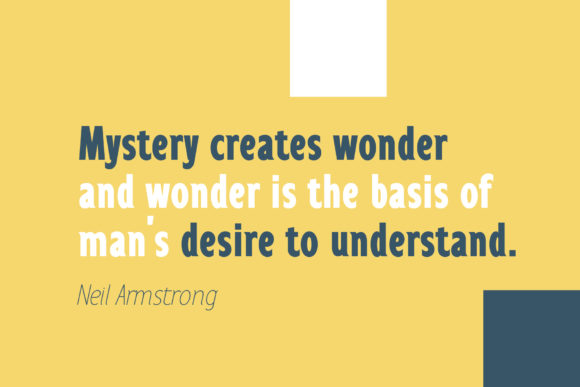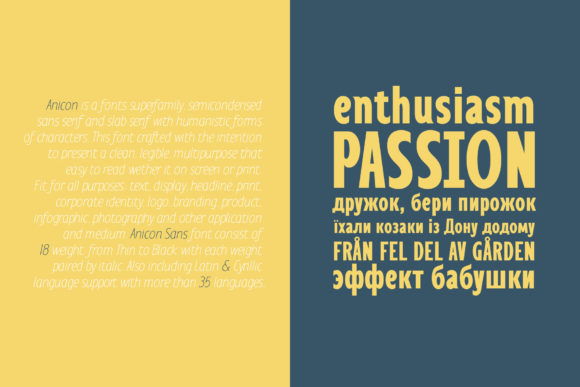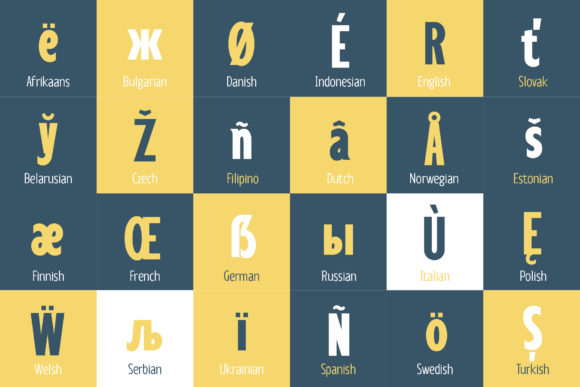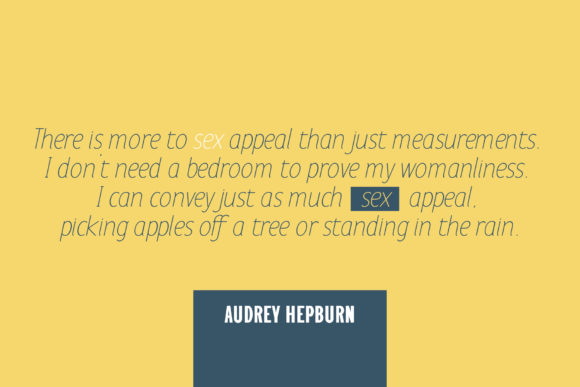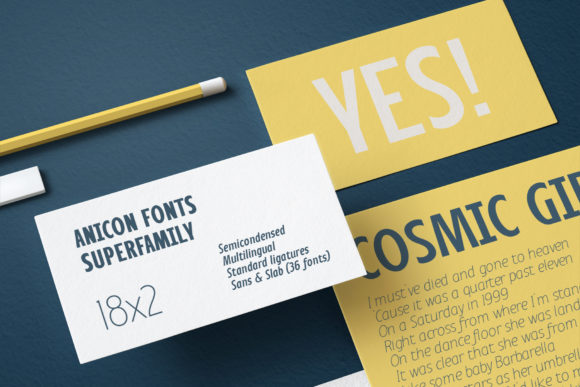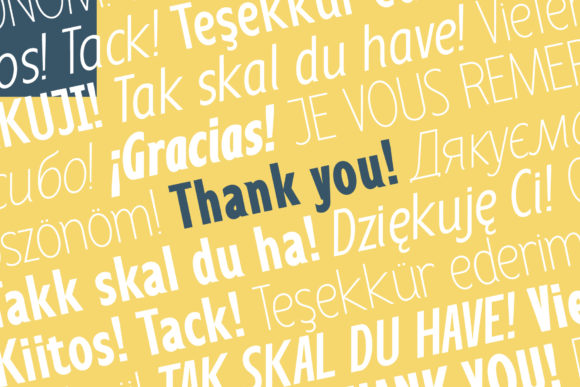
Unlocking the Magic of Typography: The Anicon Font
Have you ever been browsing through design inspiration boards, and suddenly, a beautiful sans serif font catches your eye? The elegance and simplicity of it all leave you wondering what makes it so special. For designers, the quest for the perfect font is an ongoing journey, and Anicon Font is about to become your new favorite companion.
Anicon Font is a meticulously crafted magical sans serif font that combines timeless elegance with authentic typography. Its classic style exudes a friendly feel, making it perfect for creating original and outstanding designs. Whether you’re working on a branding project, designing a website, or crafting a marketing campaign, Anicon Font is an excellent choice that will elevate your designs to the next level.
Anicon Font Key Features
- Font Family: Anicon Font is a sans-serif font family with multiple weights and styles, designed to provide a clean and modern look.
- Size: The font family includes 12 styles, ranging from Extra Light to Black, each with its unique characteristics.
- Resolution: Optimized for high-resolution displays, with precise rendering at resolutions up to 300 DPI.
- Unique Characteristics: Anicon Font features a distinctive geometric shape, with a focus on legibility and readability in digital environments.
Designer Review: Anicon Font
Anicon Font is an interesting addition to any design project. I’ve had the chance to work with it, and here’s my honest review.
- The unique aesthetic of Anicon Font adds a touch of elegance to any design. Its subtle curves and refined lines make it perfect for corporate or luxury branding.
- Anicon Font has a wide range of weights and styles, allowing for versatility in use cases. This is especially useful for designers who need to create a cohesive look across multiple platforms.
- It’s highly legible, even at smaller font sizes, making it a great choice for digital designs.
Overall, I’d say Anicon Font is a solid choice for designers who need a high-end, elegant font for their projects. While it has its limitations, its unique aesthetic and versatility make it a worthwhile investment for many designers.
Some common use cases for Anicon Font include:
- Creating minimalist and modern designs.
- Adding a unique touch to branding and marketing materials.
- Using as a display font for headings and titles.
Anicon Font is a popular sans-serif font known for its clean lines, high legibility, and versatility. However, designers may be looking for alternatives that offer unique characteristics or better suitability for specific design projects. Here are a few options to consider: